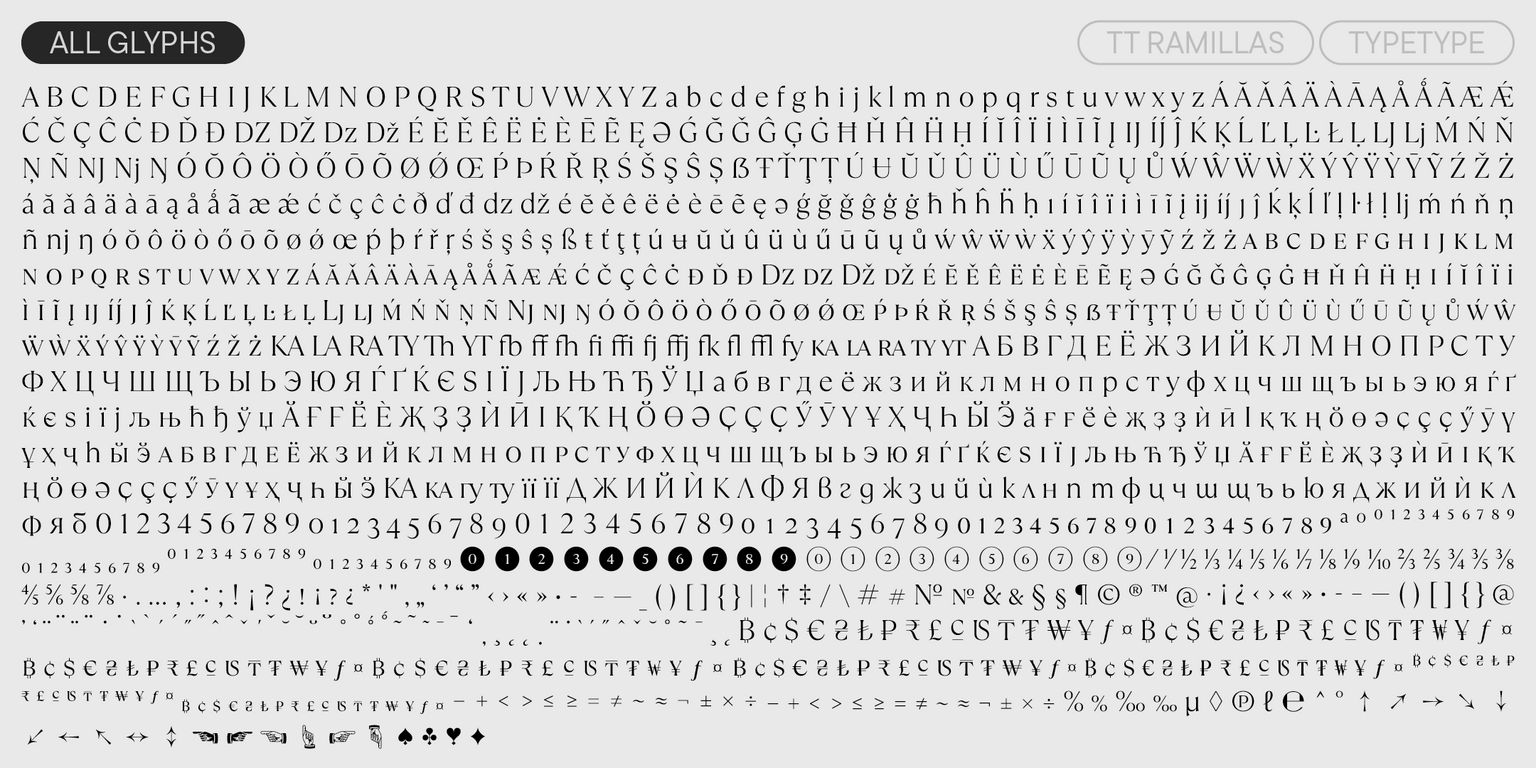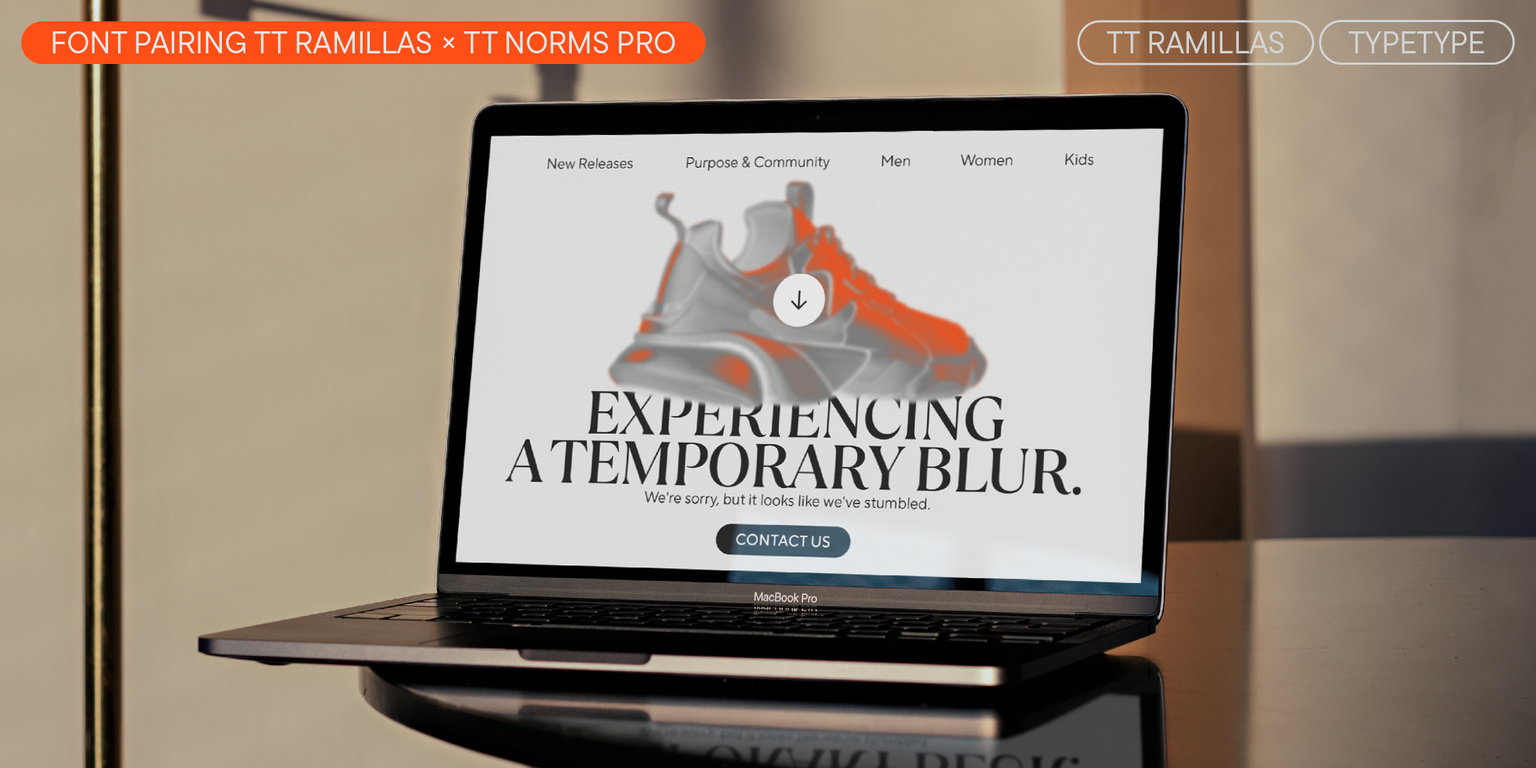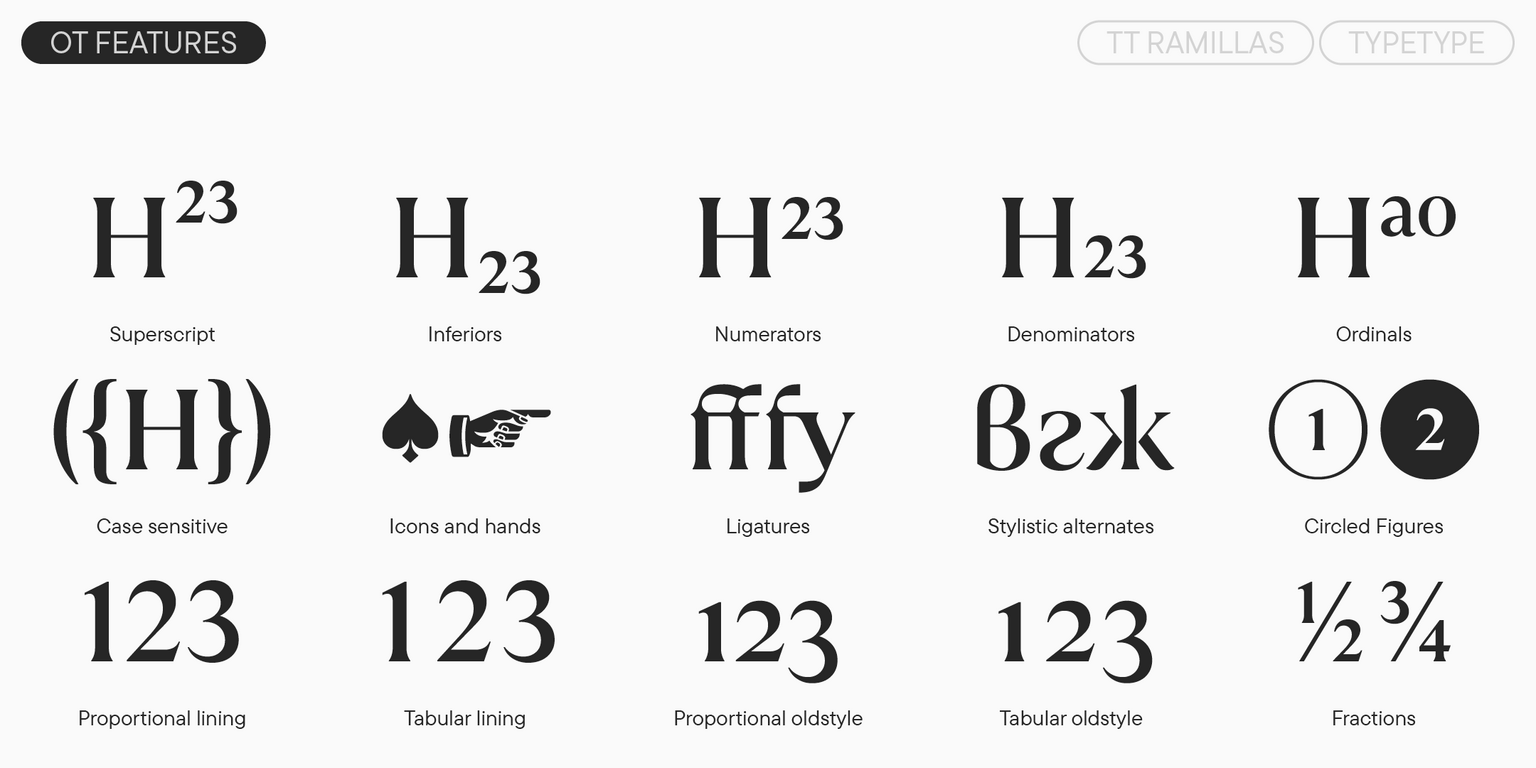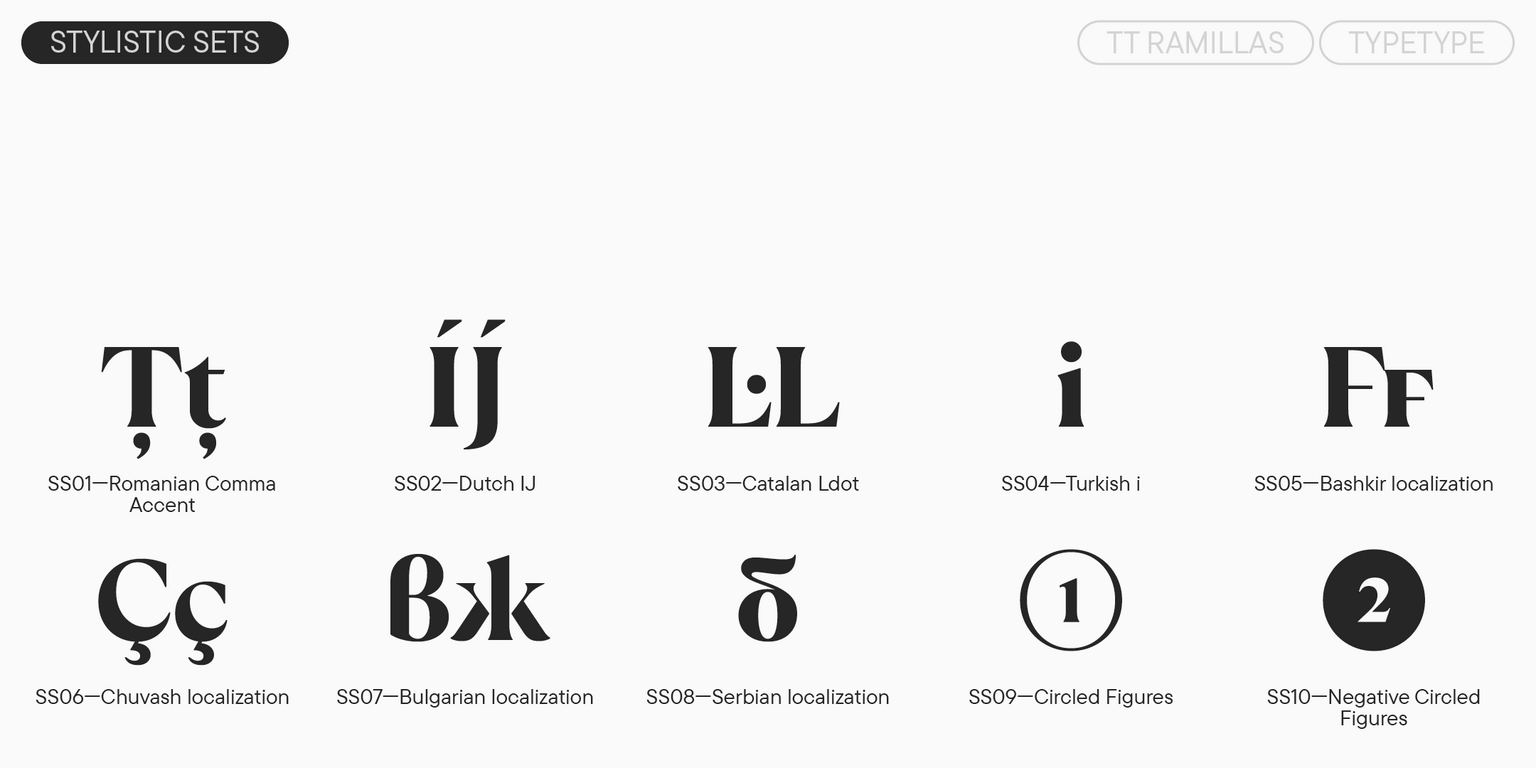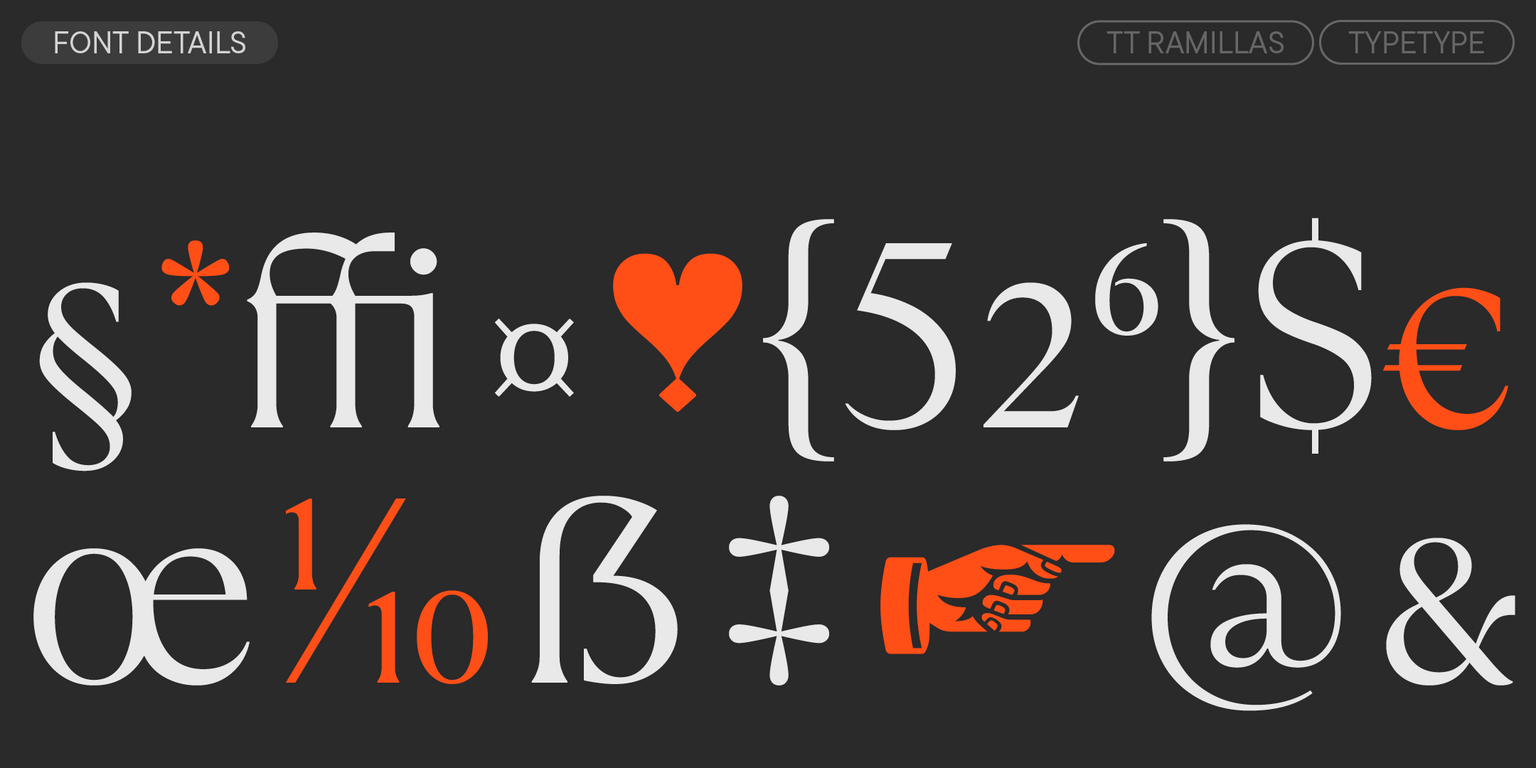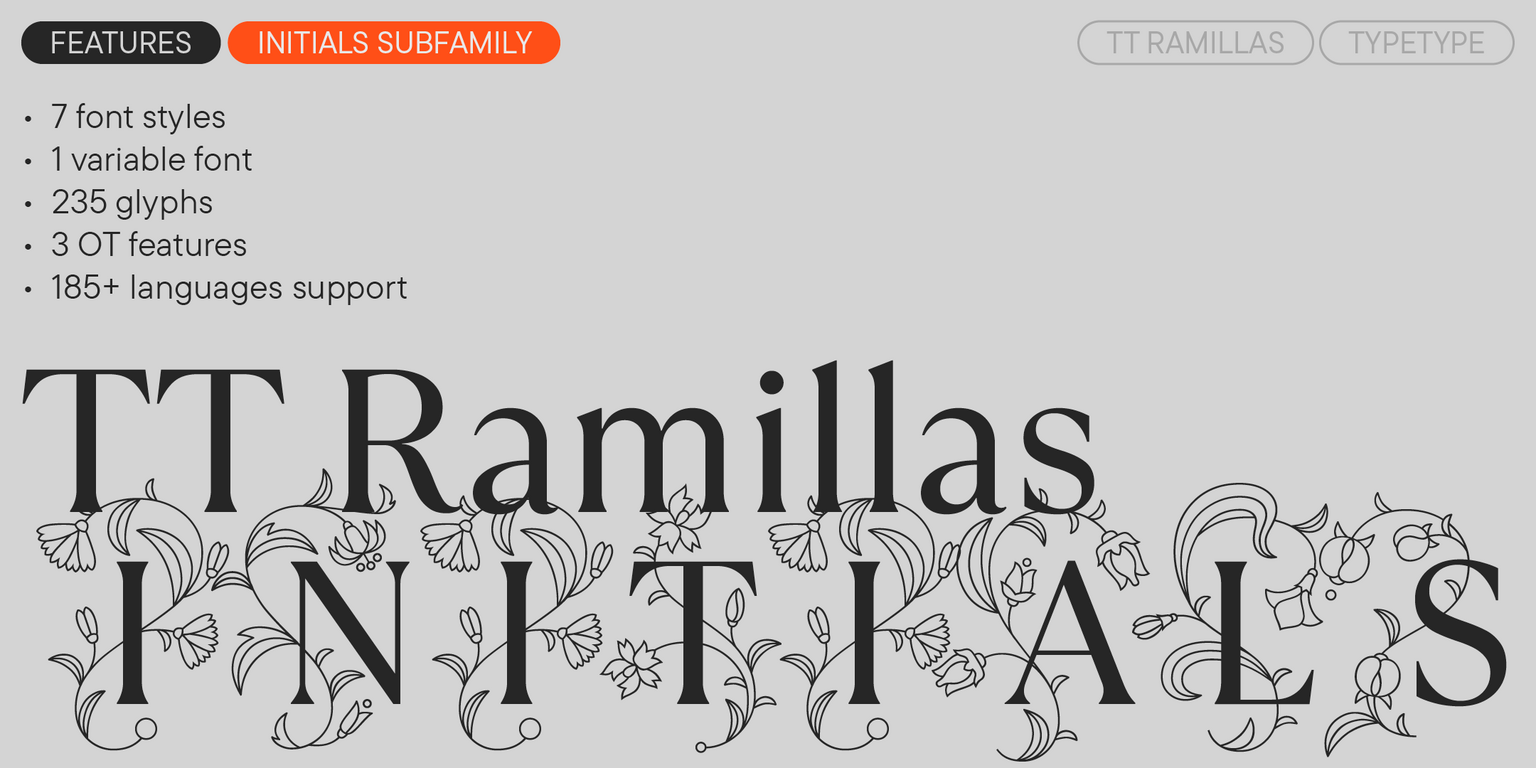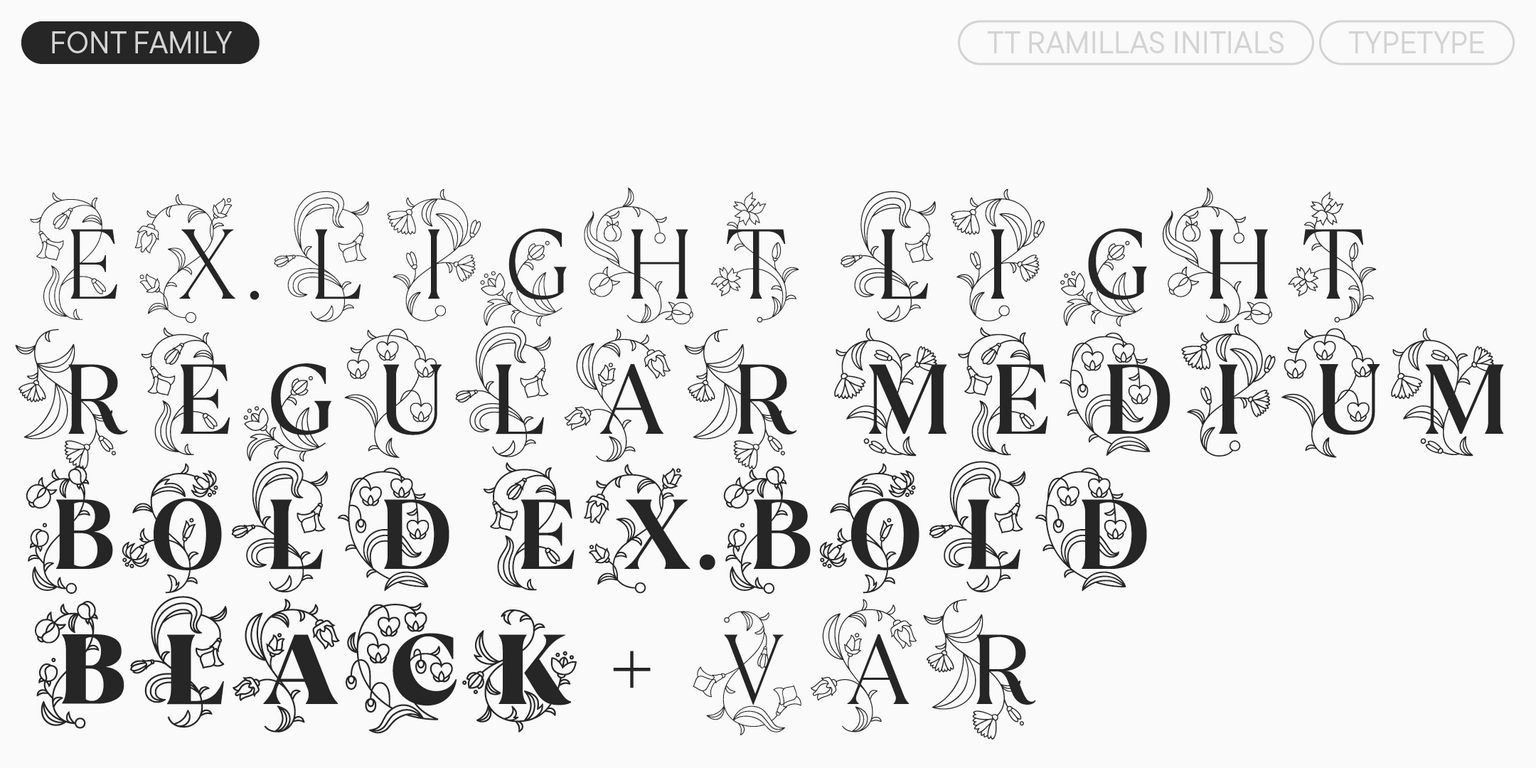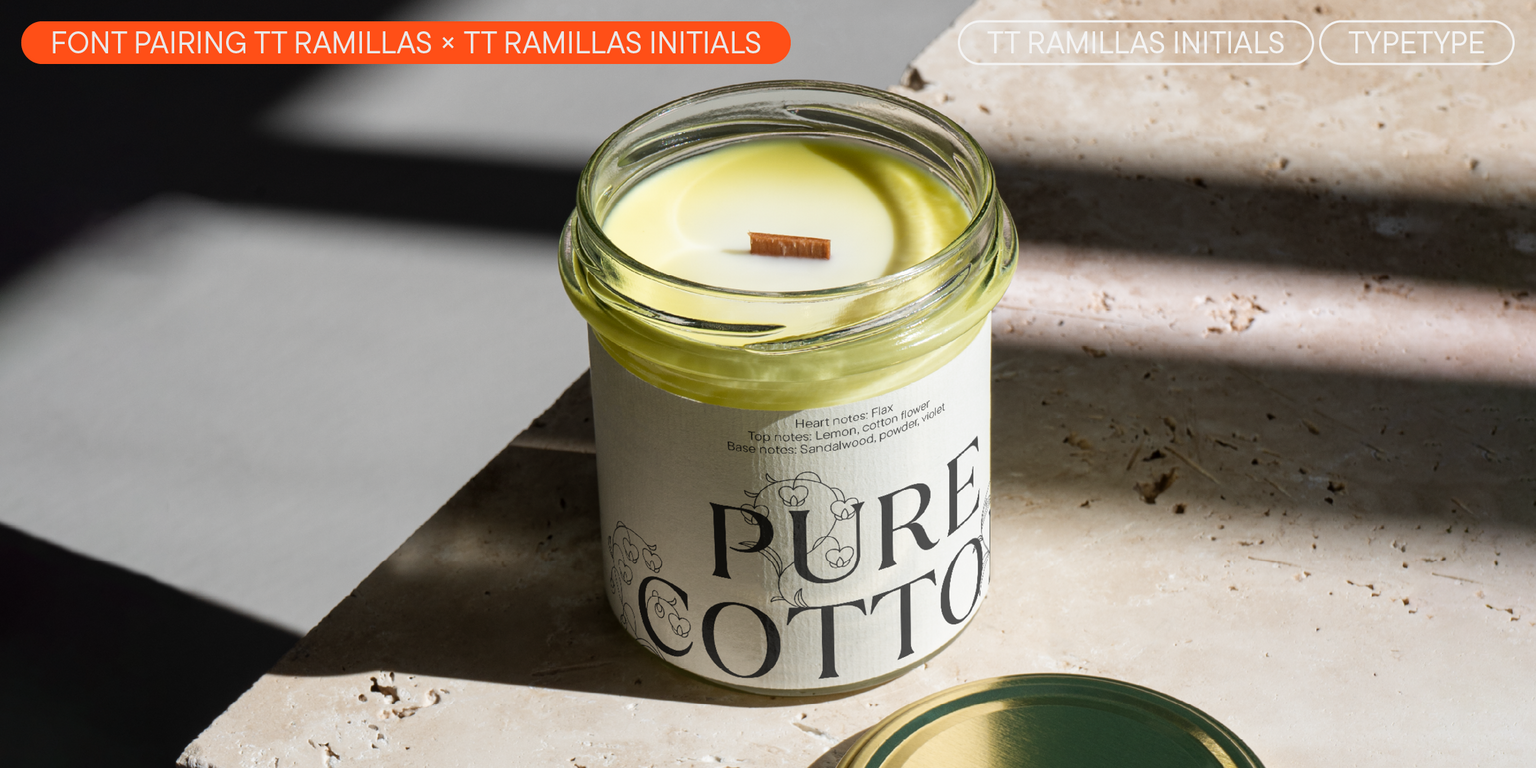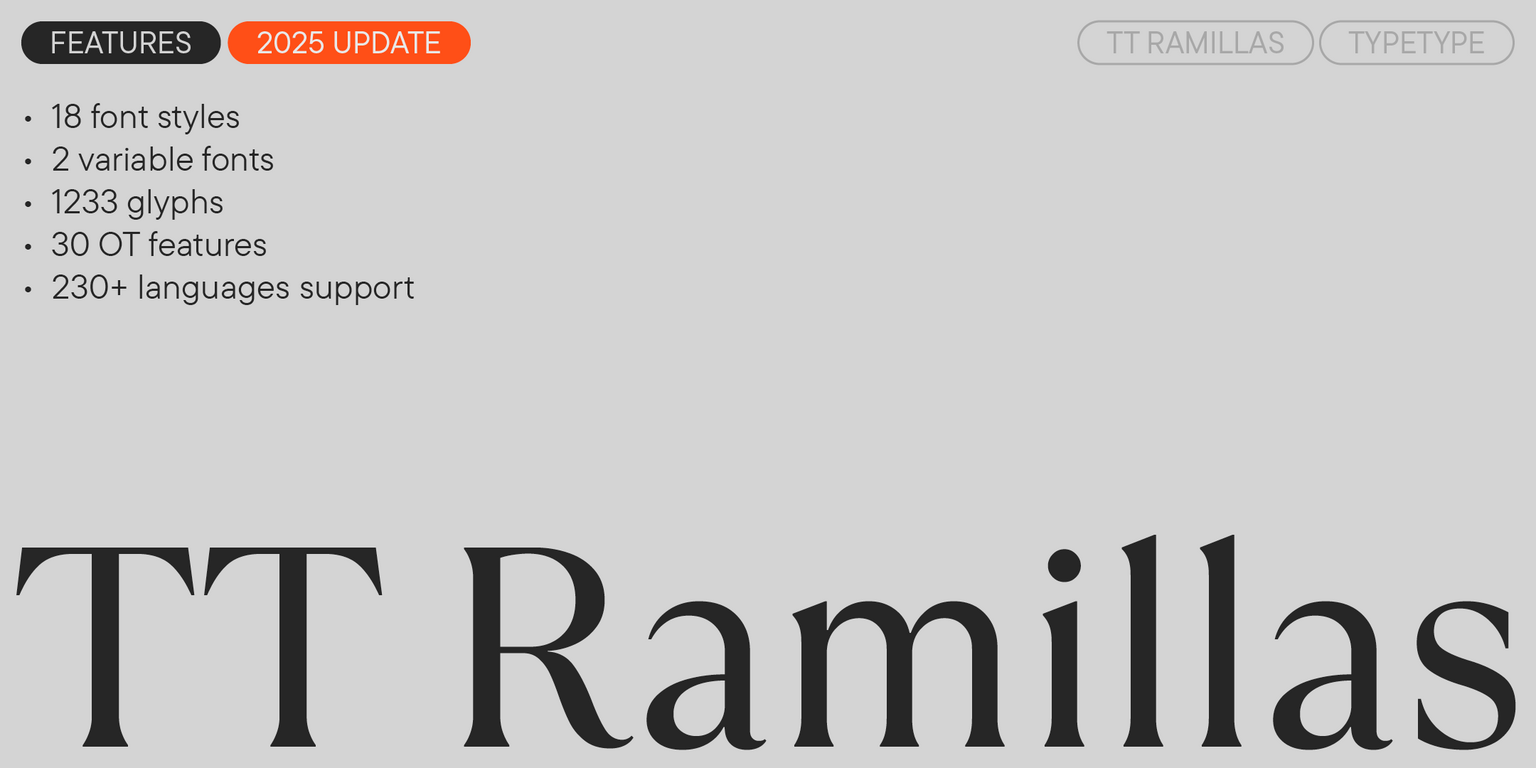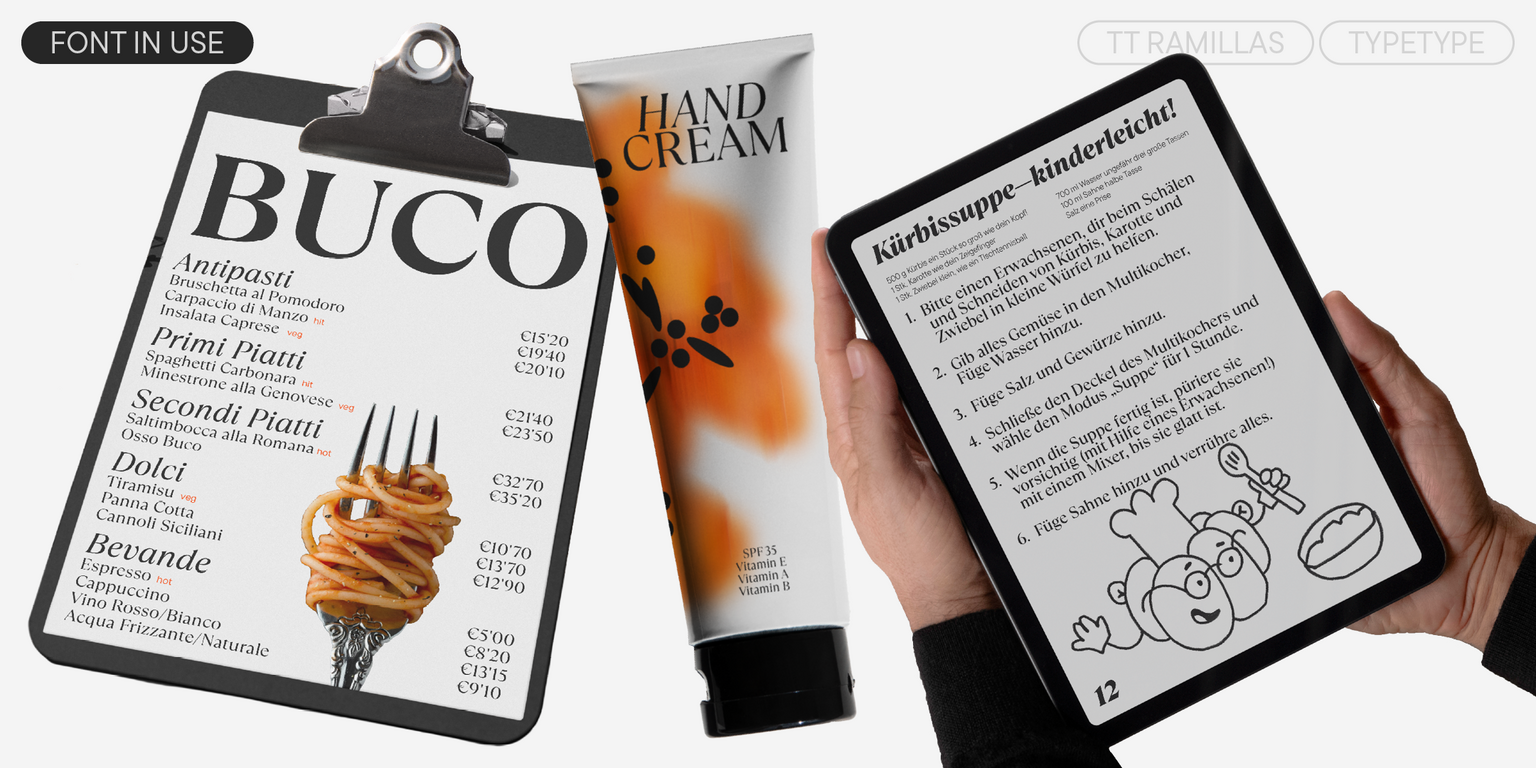
TT Ramillas
TT Ramillas is a contemporary serif with editorial versatility. It features decorative styles and ornamental initials with floral motifs.
The visual features of TT Ramillas are high contrast, small flared serifs, variable slope of ovals, open aperture of signs, contrasting thin nodules and no drops. In addition, TT Ramillas has a characteristic flame-like element in the lowercase Cyrillic letter б and a bright "tongue" in the letters Ээ, ductile legs in Кк, Жж, and Яя, as well as a very interesting upper terminal in the letter a.
28 styles: 7 weights and 7 corresponding italics, 4 decorative ones, 7 initials styles and 3 variable fonts.
Introducing the updated TT Ramillas, version 2.000!
This elegant typeface has been expanded and now boasts even more helpful functionality.
TT Ramillas is a stylish transitional serif perfectly adapted to modern reality and requirements. The idea behind this project was to experiment: we aimed to craft a modern serif with precisely balanced details by rethinking traditional forms and meticulously designing each glyph. And we achieved it!
Remarkable visual features of TT Ramillas include high contrast, small and flared serifs, a variable slant of ovals, an open aperture, contrasting and thin stresses, and the absence of teardrops. The font is also marked by a specific flame-like element of the letter “б,” an eye-catching tongue of the letter “Ээ,” flexible legs of the letters “Кк,” “Жж,” “Яя,” and a distinctive terminal shape of the letter “а.”